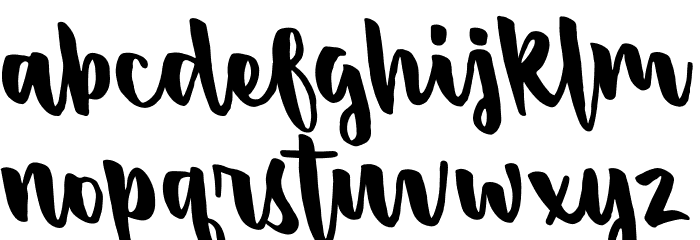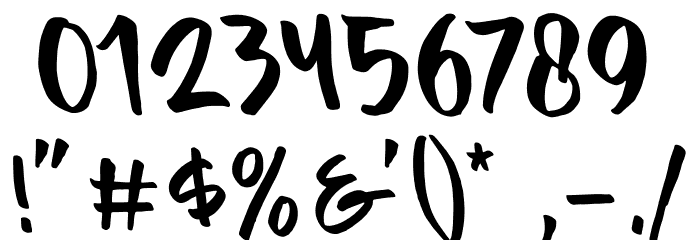
Passifille Tilted Font
This font features a bold, handwritten style with a playful and energetic appearance. The letters are slightly tilted, adding a dynamic and informal touch. The strokes are thick and consistent, giving it a strong presence. The characters are well-spaced, maintaining readability while conveying a sense of movement. The uppercase and lowercase letters are distinct yet harmonious, and the numerals and special characters complement the overall style. This font is perfect for projects that require a personal, creative, and lively feel.
A bold, handwritten font with a playful and dynamic style.
- Font: Passifille Tilted
- Proposed Projects: Ideal for greeting cards, invitations, posters, and branding materials that aim to convey a personal and energetic vibe.